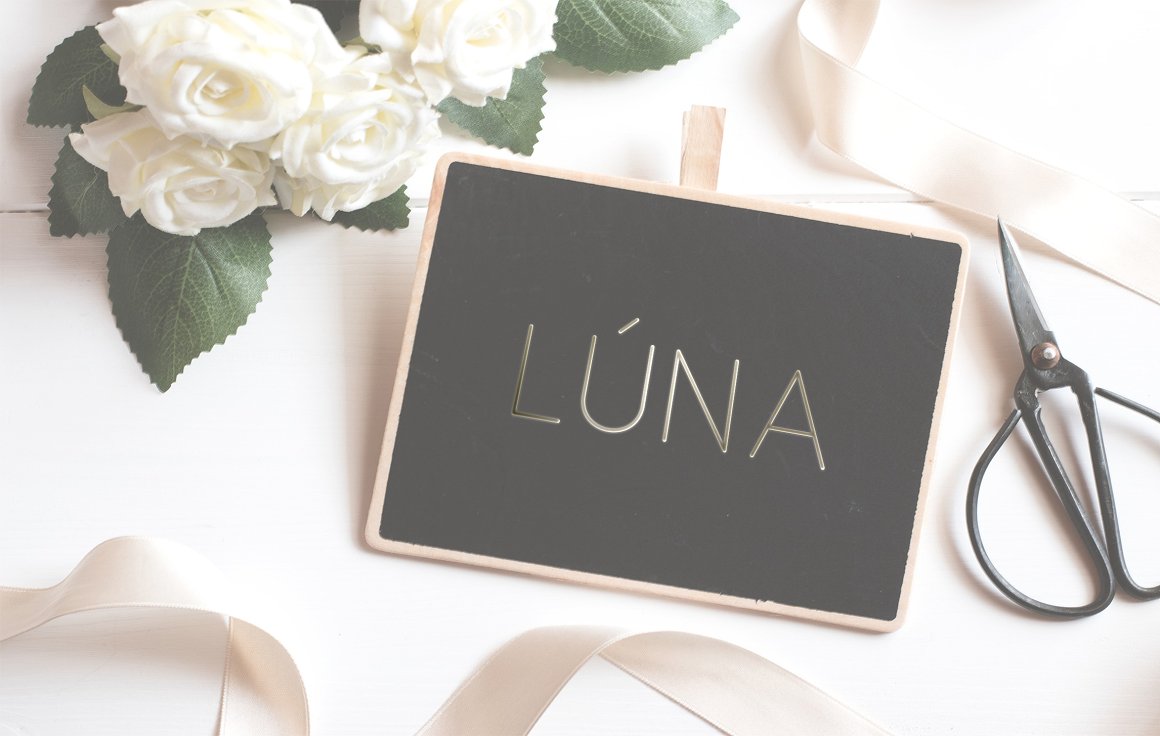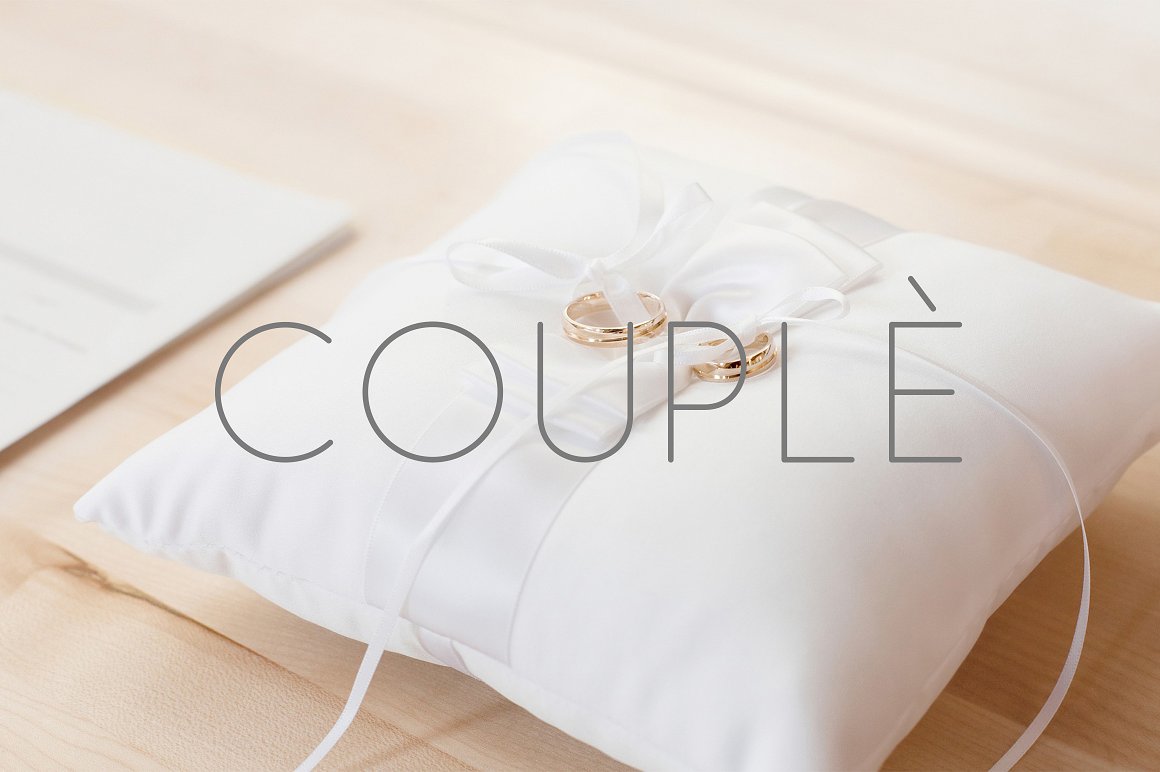
Lúna Font Family
Introducing Lúna! It is designed by Graphicfresh, this is a premium font, are sold on creativemarket, but it was great, it is free today for download. Lúna is a modern and futuristic sans serif font family. The combination of futuristic and geometric elements renders a modern design. This is irreproachable sans serif to diversify your headlines, branding visual identity, poster, logo, magazines and etc.